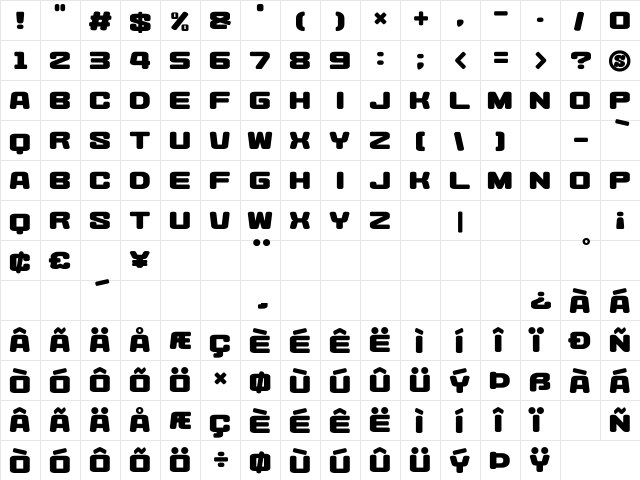
Heysei Synthesizer Regular
Design Context for Heysei Synthesizer Typeface
Heysei Synthesizer is a composed and adaptable typeface that performs quietly and consistently across a wide range of design contexts.